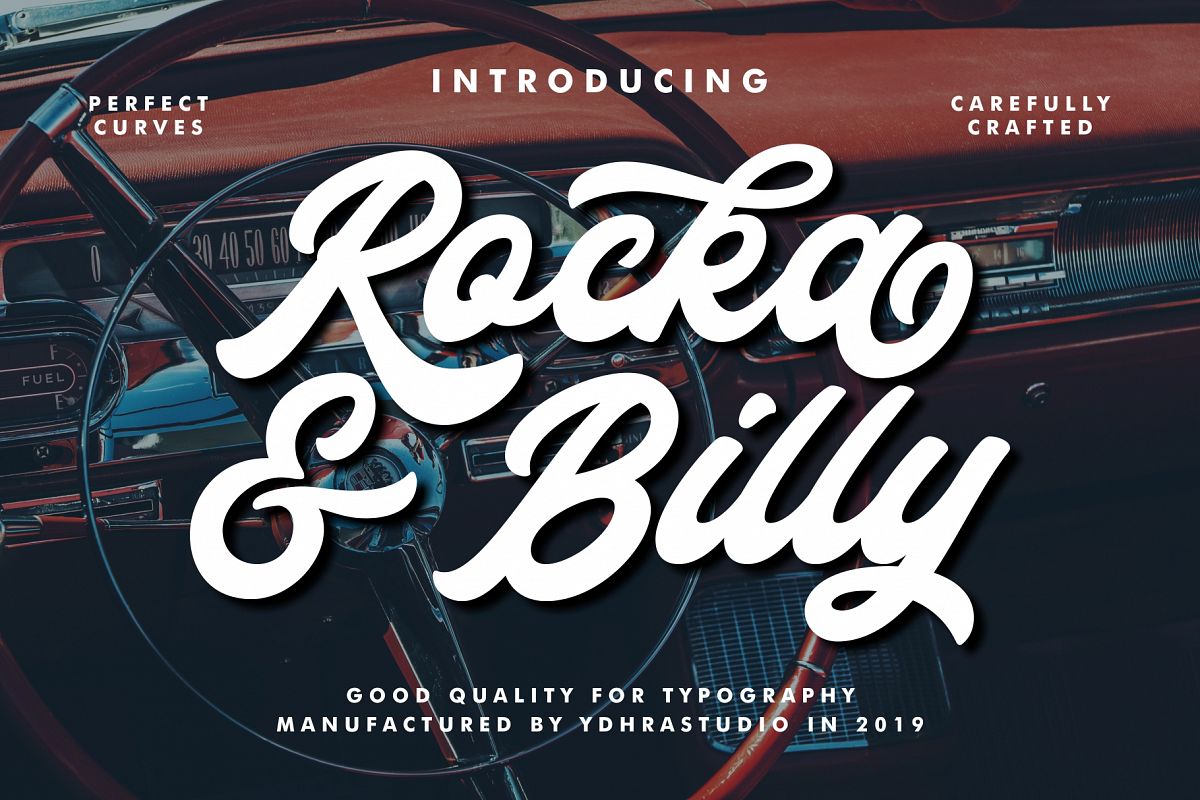
Rocka & Billy - Bold Script Font
We introduce our new product called Rocka & Billy.
Rocka
& Billy
is a bold script font inspired by Retro and Modern hand lettering style, so you can use this font into any style of your design.
Rocka
& Billy
also has a standart Multilingual Support.
Rocka
& Billy
is great for Logotype, Branding Design, Logo
Design, Digital Lettering Arts, Instagram Design, T-Shirt/Apparel, Badge, Packaging, Poster,
Magazine, Book Cover, Quotes, Signs, Advertising Design, and any design needs.
Rocka
& Billy Features :
- Upper and Lowercase Standard Characters,
Punctuation, Numerals
- Opentype Features such as Standard Ligatures,
Discretonary Ligatures and Stylistic Set (ss01 - ss09)
- Includes a range of multilingual characters.
Mix and match the alternate characters to add
an attractive message to your design.